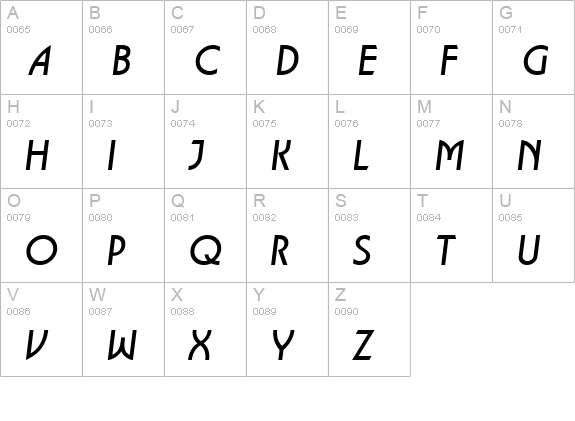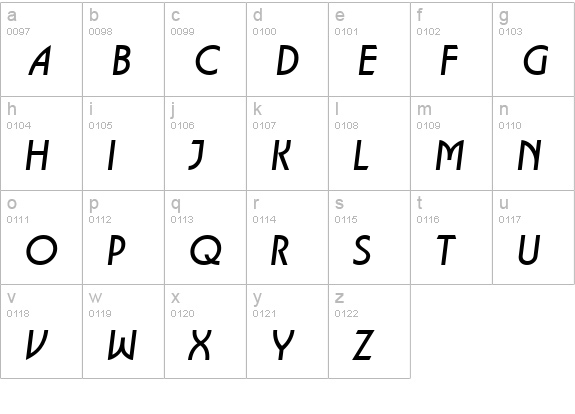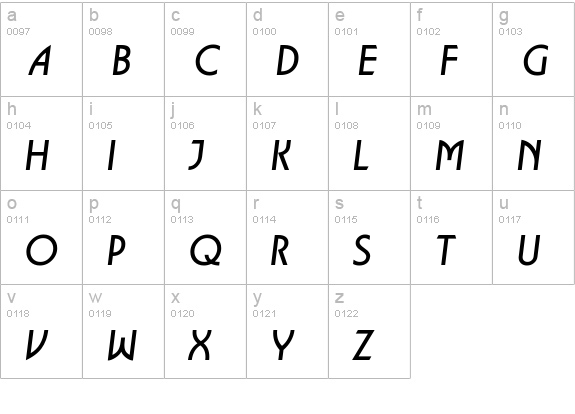
a_Lancet Italic is a distinctive, italic variant in the a_Lancet typeface family \xE2\x80\x94 well suited to design and typography projects.
The Lancet Italic font is a stylish and elegant typeface that exudes sophistication and modernity. Its sleek, slanted design adds a touch of flair to any project, making it perfect for headlines, logos, and branding materials. The Lancet Italic font is versatile and can be used in a variety of design applications, from print to digital. What's even better is that the Lancet Italic font is available for free download at FontsMarket.com. This means you can easily access this beautiful font and incorporate it into your designs without any cost. Don't miss out on the opportunity to enhance your projects with the Lancet Italic font - download it today and elevate your design game!